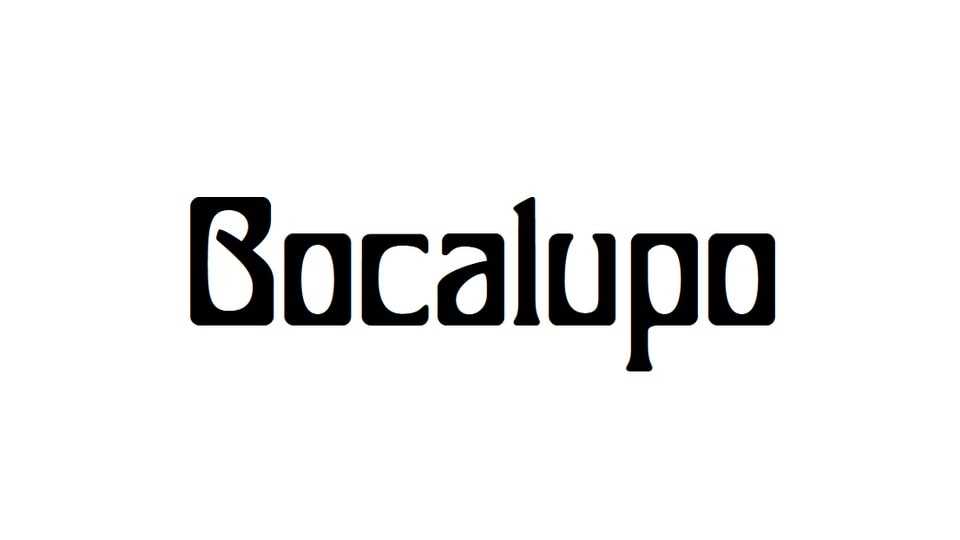
Download Bocalupo font, an elegant Art Nouveau typeface inspired by the wooden characters distributed by the Tellenbach & Cie foundry.
Designer: Ambre Ruggeri